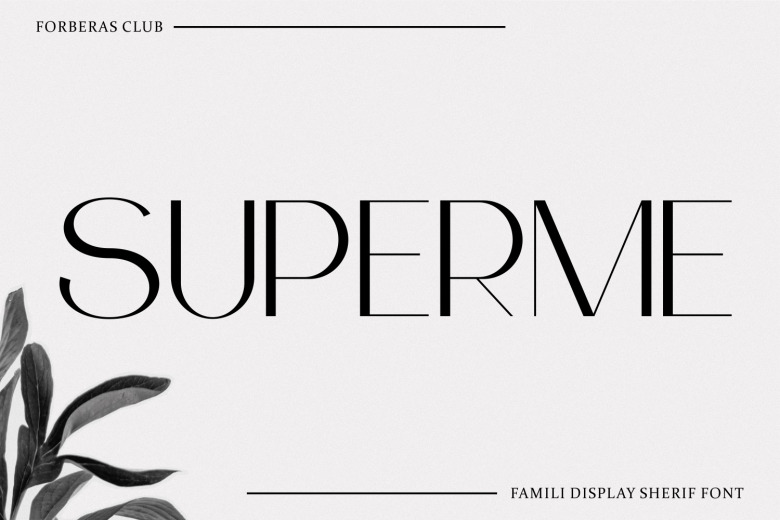
Superme Font
Superme is a clean and modern sans serif font. Great for wedding greeting cards, logos, branding materials, business cards, quotes, posters, Cricut artwork, books, and more!
Superme Sans Serif Font